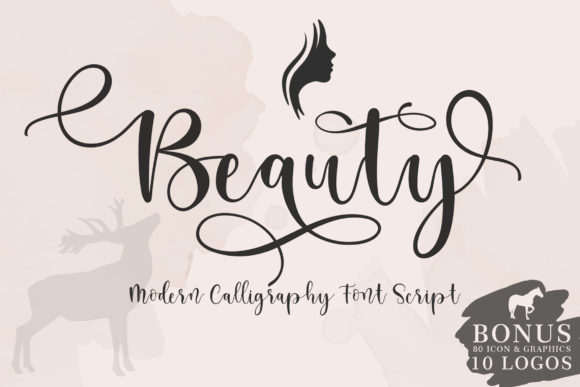
Introducing Beauty Script Font: The Epitome of Elegance and Charm
Are you on the hunt for a font that exudes elegance, sophistication, and a touch of whimsy? Look no further than the Beauty Script Font. This gorgeous script font is designed to capture the essence of beauty and charm, making it perfect for designers, crafters, and anyone looking to add a touch of luxury to their projects.
What is Beauty Script Font?
Beauty Script Font is a stunning script font that features wonderfully light swashes, giving it an effortless and charming feel. The font is designed to be versatile, making it suitable for a wide range of applications, from wedding invitations and branding materials to packaging and digital media.
Key Features of Beauty Script Font
- Light Swashes: The font’s light swashes add a touch of elegance and sophistication, making it perfect for high-end branding and luxury projects.
- Effortless Charm: The font’s effortless charm makes it easy to read and beautiful to look at, making it perfect for body text and headlines.
- Versatile: The font is designed to be versatile, making it suitable for a wide range of applications, from print to digital media.
- Elegant and Sophisticated: The font’s elegant and sophisticated feel makes it perfect for luxury brands, wedding invitations, and high-end products.
Why Choose Beauty Script Font?
There are many script fonts available, but Beauty Script Font stands out from the rest due to its unique combination of elegance, sophistication, and charm. Here are a few reasons why you should choose Beauty Script Font for your next project:
- Unique and Eye-Catching: The font’s unique design and light swashes make it stand out from other script fonts, adding a touch of elegance and sophistication to your projects.
- Easy to Read: Despite its elegant and sophisticated feel, the font is easy to read, making it perfect for body text and headlines.
- High-Quality: The font is designed to be high-quality, with crisp and clean lines that look beautiful on any device or medium.
How to Use Beauty Script Font
Beauty Script Font is perfect for a wide range of applications, including:
- Wedding Invitations: The font’s elegant and sophisticated feel makes it perfect for wedding invitations, save-the-date cards, and other wedding-related materials.
- Branding: The font’s unique design and light swashes make it perfect for luxury brands, high-end products, and premium services.
- Packaging: The font’s elegant and sophisticated feel makes it perfect for packaging, labels, and other marketing materials.
- Digital Media: The font is designed to be versatile, making it suitable for digital media, including social media graphics, blog posts, and website headers.
Tips and Tricks for Using Beauty Script Font
Here are a few tips and tricks to help you get the most out of Beauty Script Font:
- Use it Sparingly: While the font is beautiful and elegant, it’s best to use it sparingly to avoid overwhelming your audience.
- Pair it with Other Fonts: The font pairs well with other fonts, including sans-serif fonts, to create a beautiful and harmonious design.
- Experiment with Colors: The font looks beautiful in a variety of colors, so don’t be afraid to experiment and find the perfect color scheme for your project.
In conclusion, Beauty Script Font is a gorgeous script font that exudes elegance, sophistication, and charm. Its light swashes and effortless feel make it perfect for a wide range of applications, from wedding invitations and branding materials to packaging and digital media. With its unique design, high-quality lines, and versatility, Beauty Script Font is the perfect choice for designers, crafters, and anyone looking to add a touch of luxury to their projects.